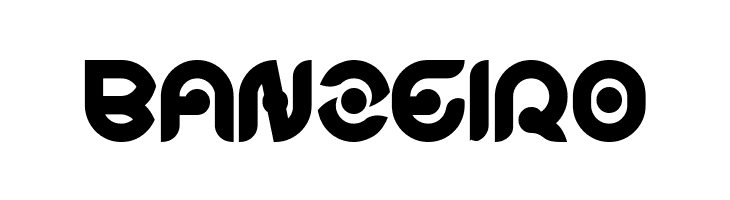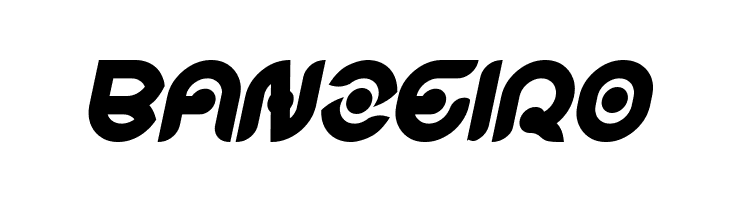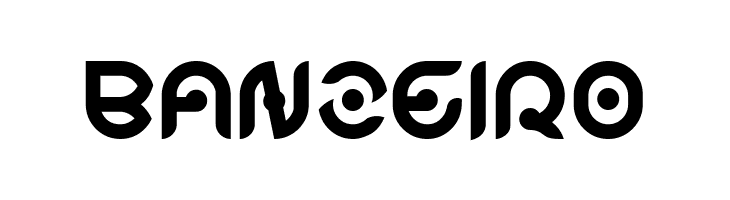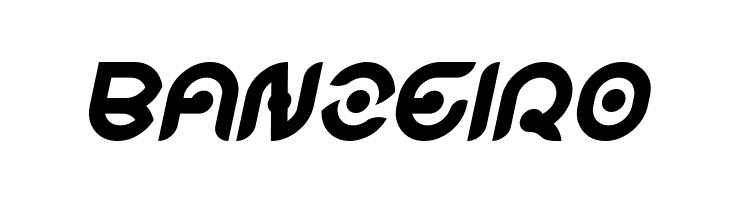
A bold, futuristic font with geometric and rounded elements.
A bold, italic typeface with a modern, futuristic design and strong visual impact.
A bold, futuristic italic font with dynamic, rounded strokes.
A bold, futuristic font with geometric, inverse-style characters.
A futuristic, geometric font with bold, rounded letterforms.